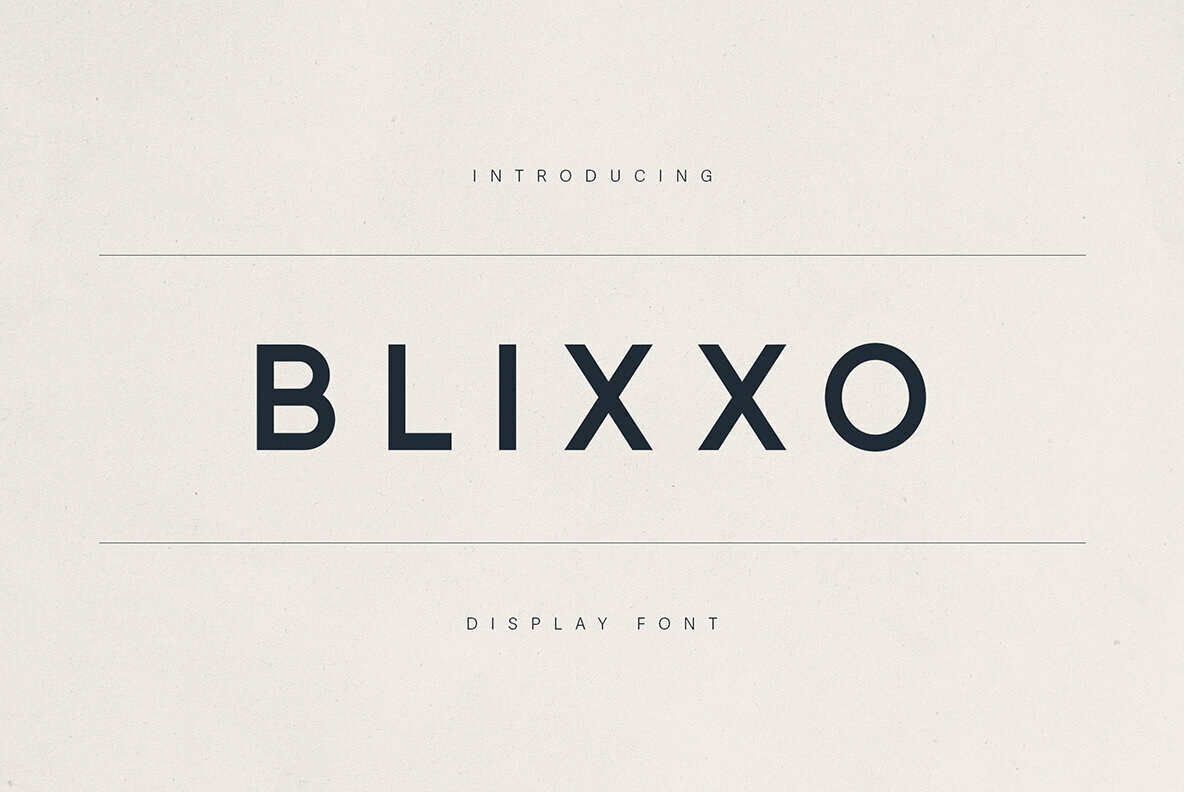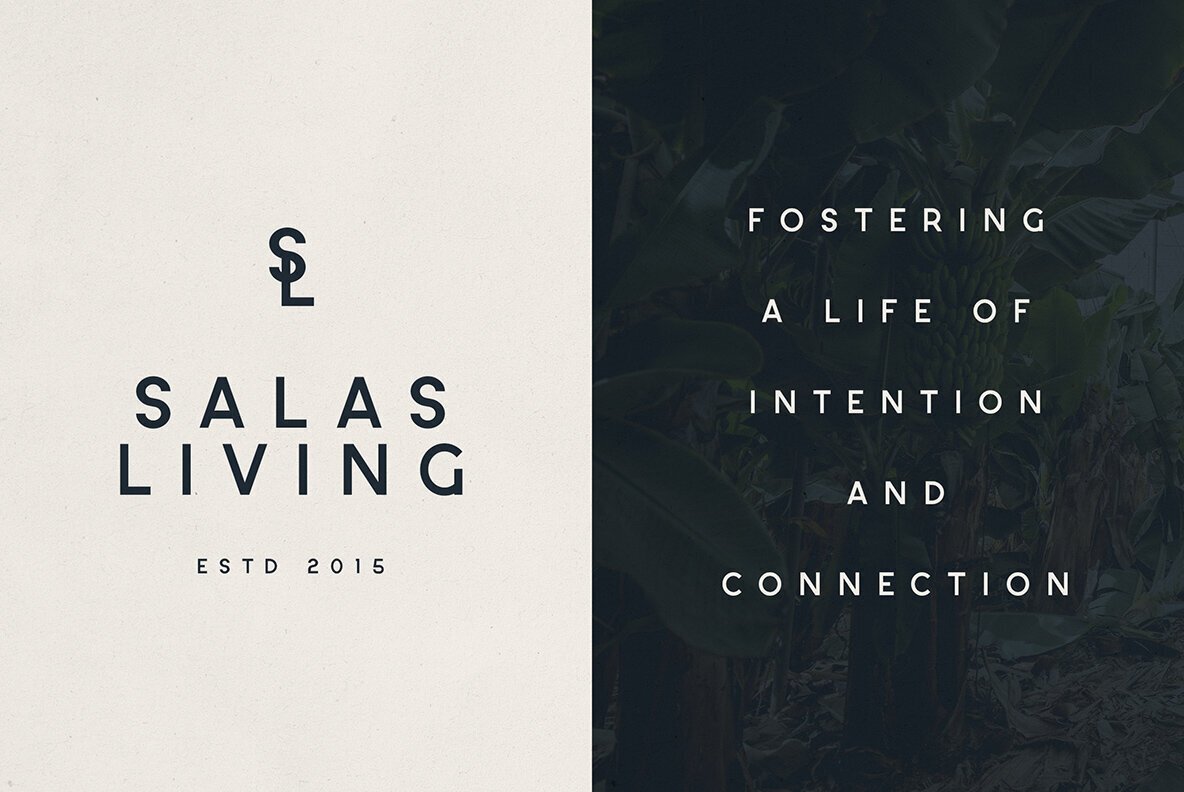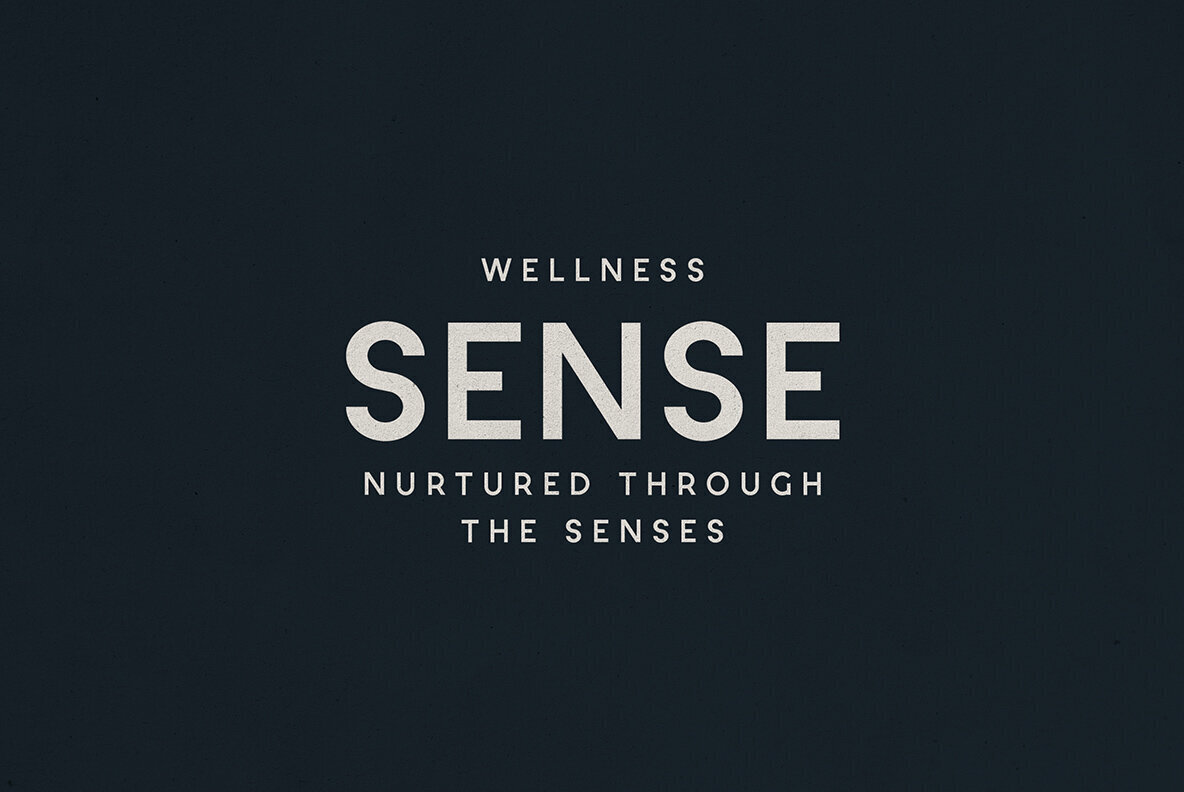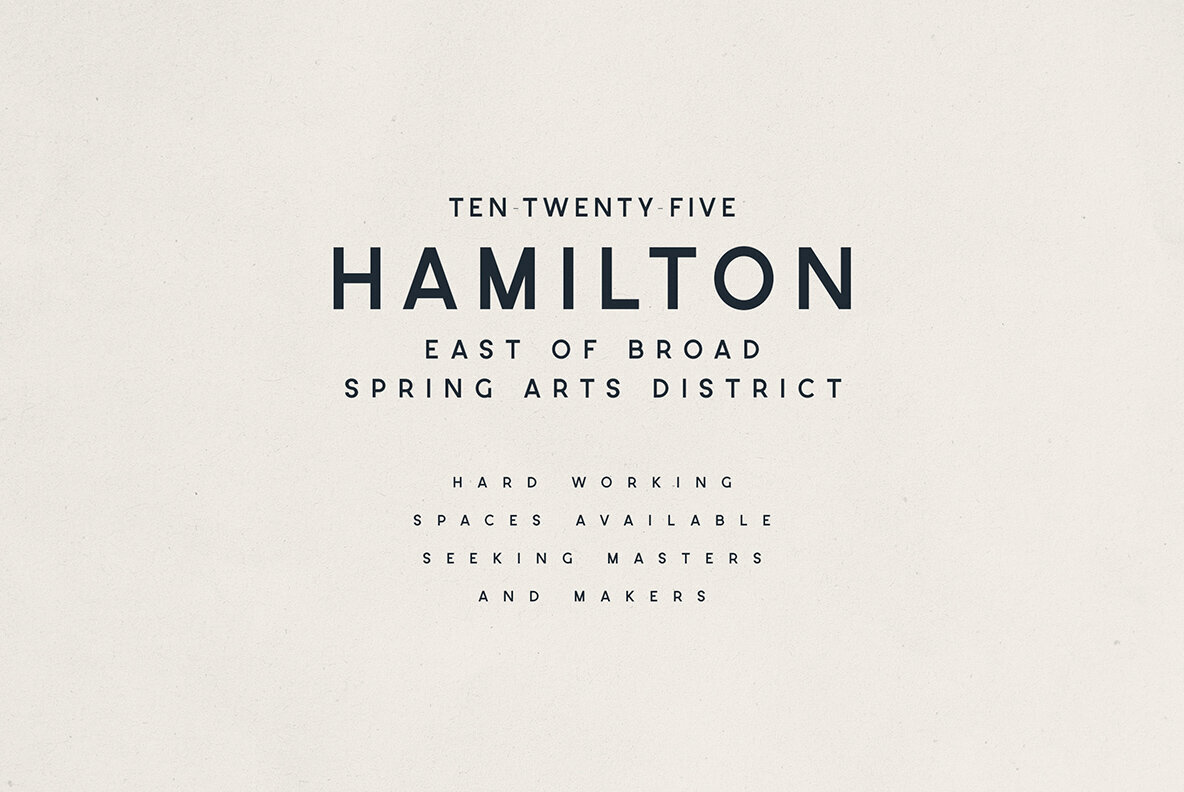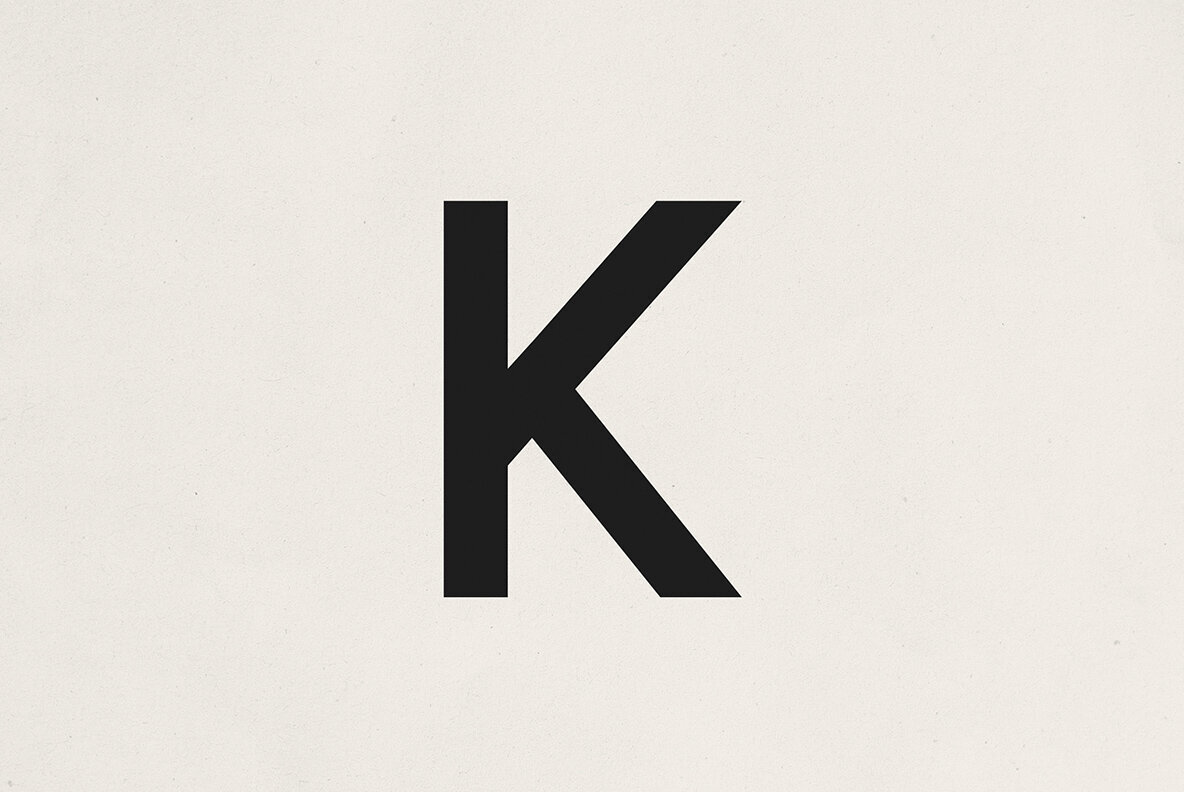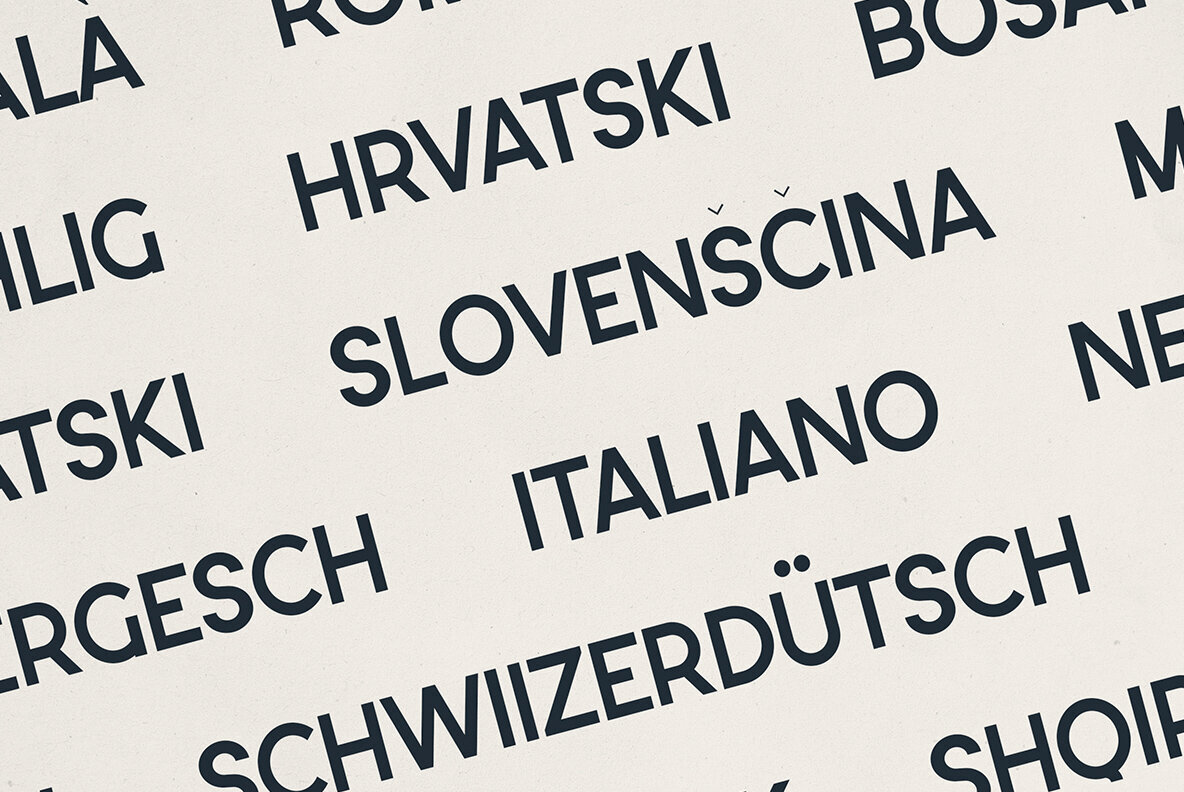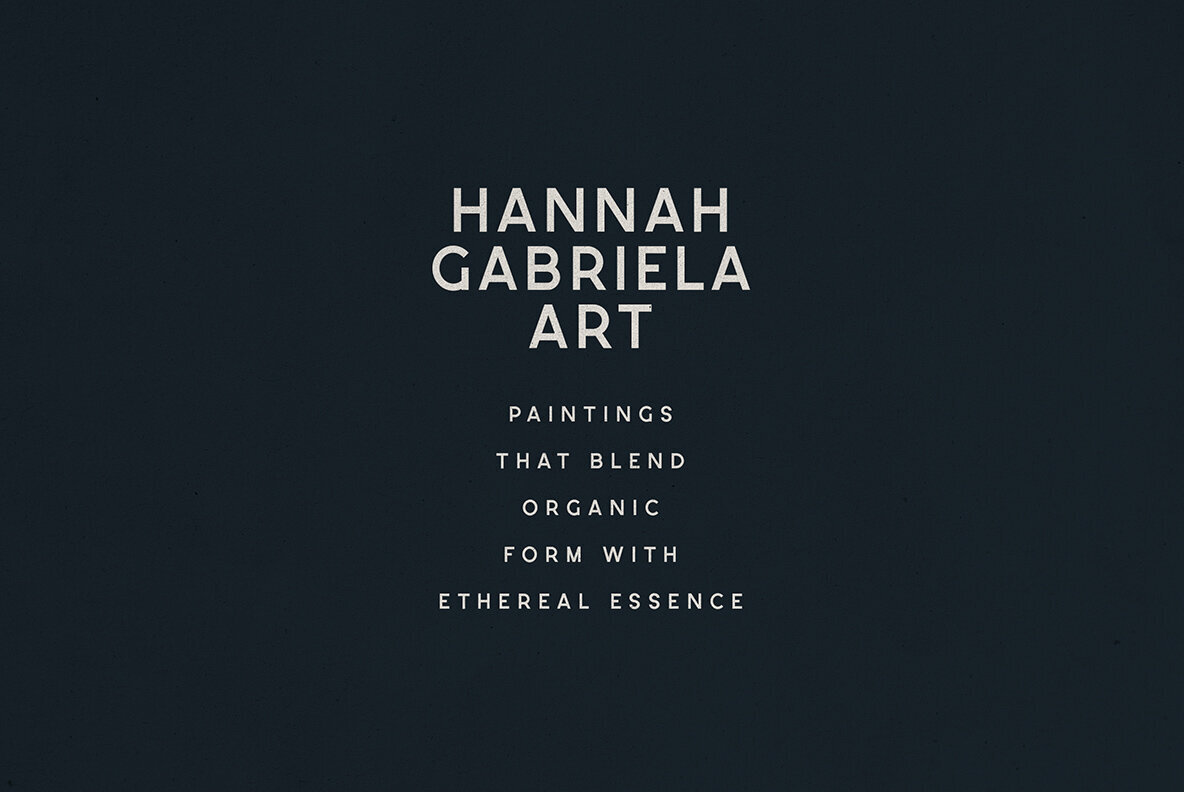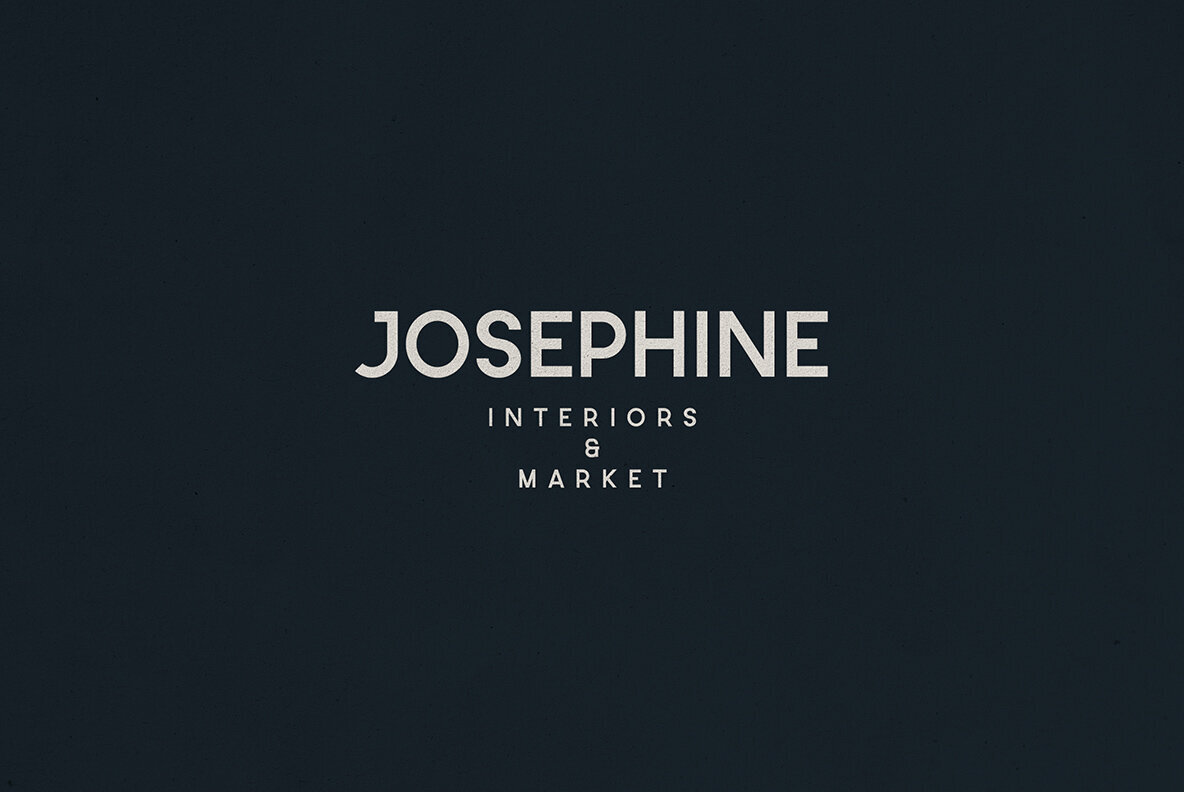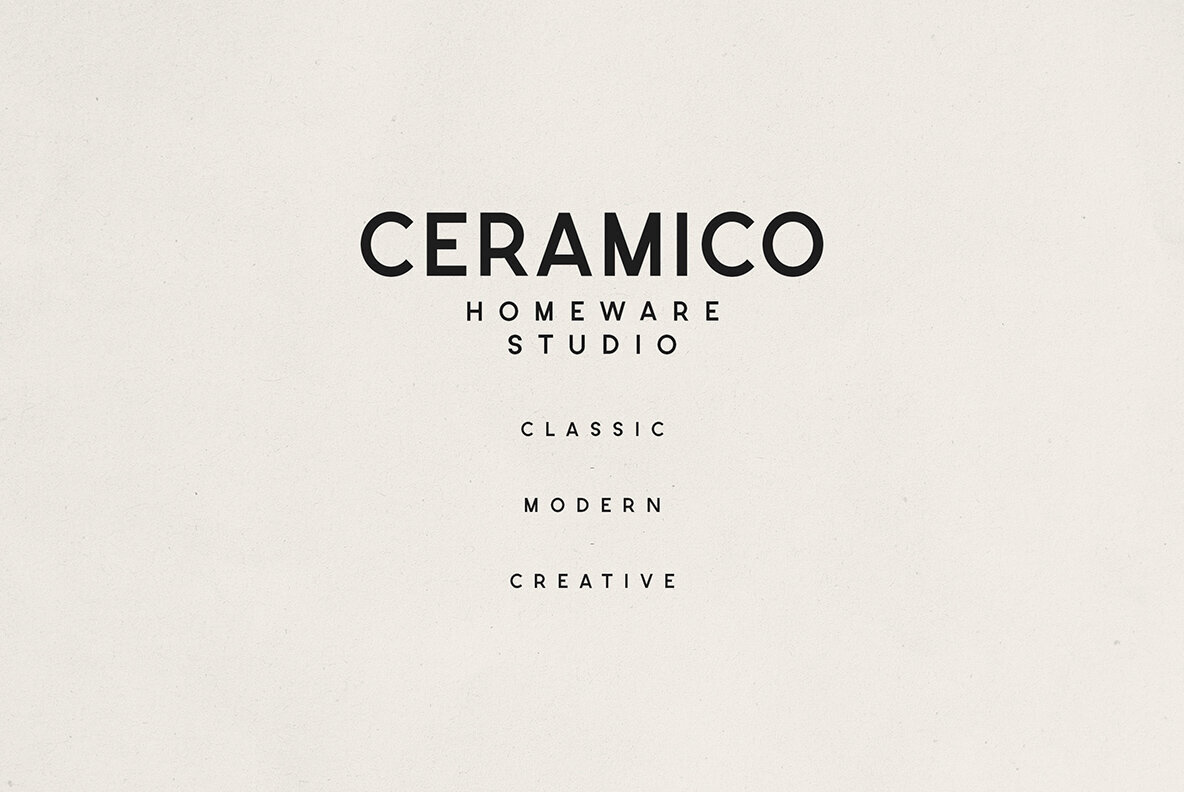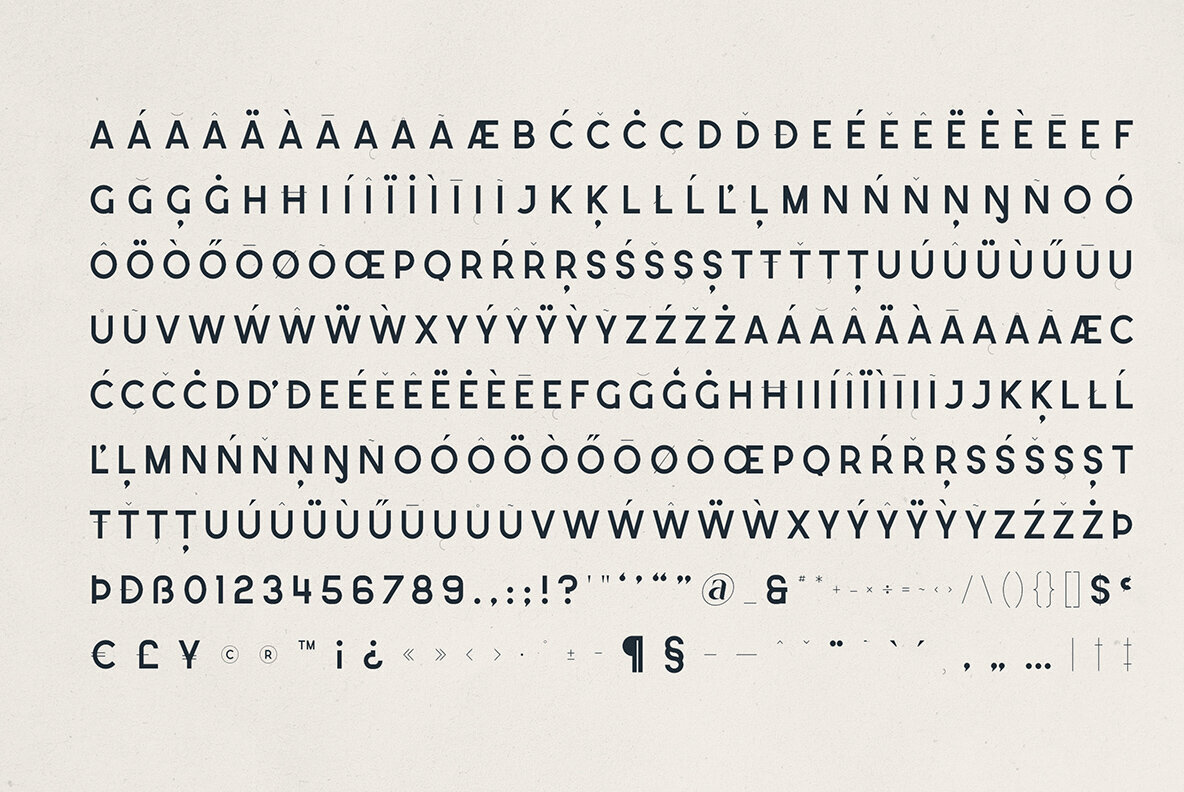
Blixxo stands as a beacon of modernity and minimalism in display typefaces, catering to brands that prioritize clarity and elegance. Its clean lines and well-balanced proportions are coupled with a robust geometric base, making it a sophisticated choice for editorial design, lifestyle branding, signage, and digital interfaces. Blixxo's versatility makes it an ideal choice for contemporary wellness brands, architectural projects, and artisanal product packaging. It offers a voice that is both modern and timeless, intentional in its design and execution. Comprehensive Language Support: Afrikaans, Albanian, Asu, Basque, Bemba, Bena, Breton, Chiga, Colognian, Cornish, Czech, Danish, Dutch, Embu, English, Estonian, Faroese, Filipino, Finnish, French, Friulian, Galician, Ganda, German, Gusii, Hungarian, Indonesian, Irish, Italian, Jola-Fonyi, Kabuverdianu, Kalenjin, Kamba, Kikuyu, Kinyarwanda, Latvian, Lithuanian, Lower Sorbian, Luo, Luxembourgish, Luyia, Machame, Makhuwa-Meetto, Makonde, Malagasy, Maltese, Manx, Meru, Morisyen, North Ndebele, Norwegian Bokmål, Norwegian Nynorsk, Nyankole, Oromo, Polish, Portuguese, Quechua, Romanian, Romansh, Rombo, Rundi, Rwa, Samburu, Sango, Sangu, Scottish Gaelic, Sena, Shambala, Shona, Slovak, Soga, Somali, Spanish, Swahili, Swedish, Swiss German, Taita, Teso, Turkish, Upper Sorbian, Uzbek (Latin), Volapük, Vunjo, Walser, Welsh, Western Frisian, Zulu.Blixxo: Modern Minimal Display Typeface